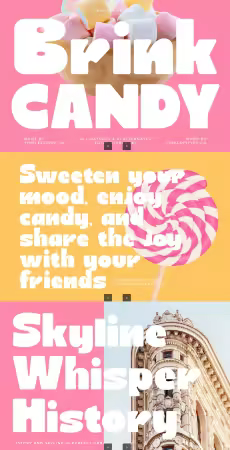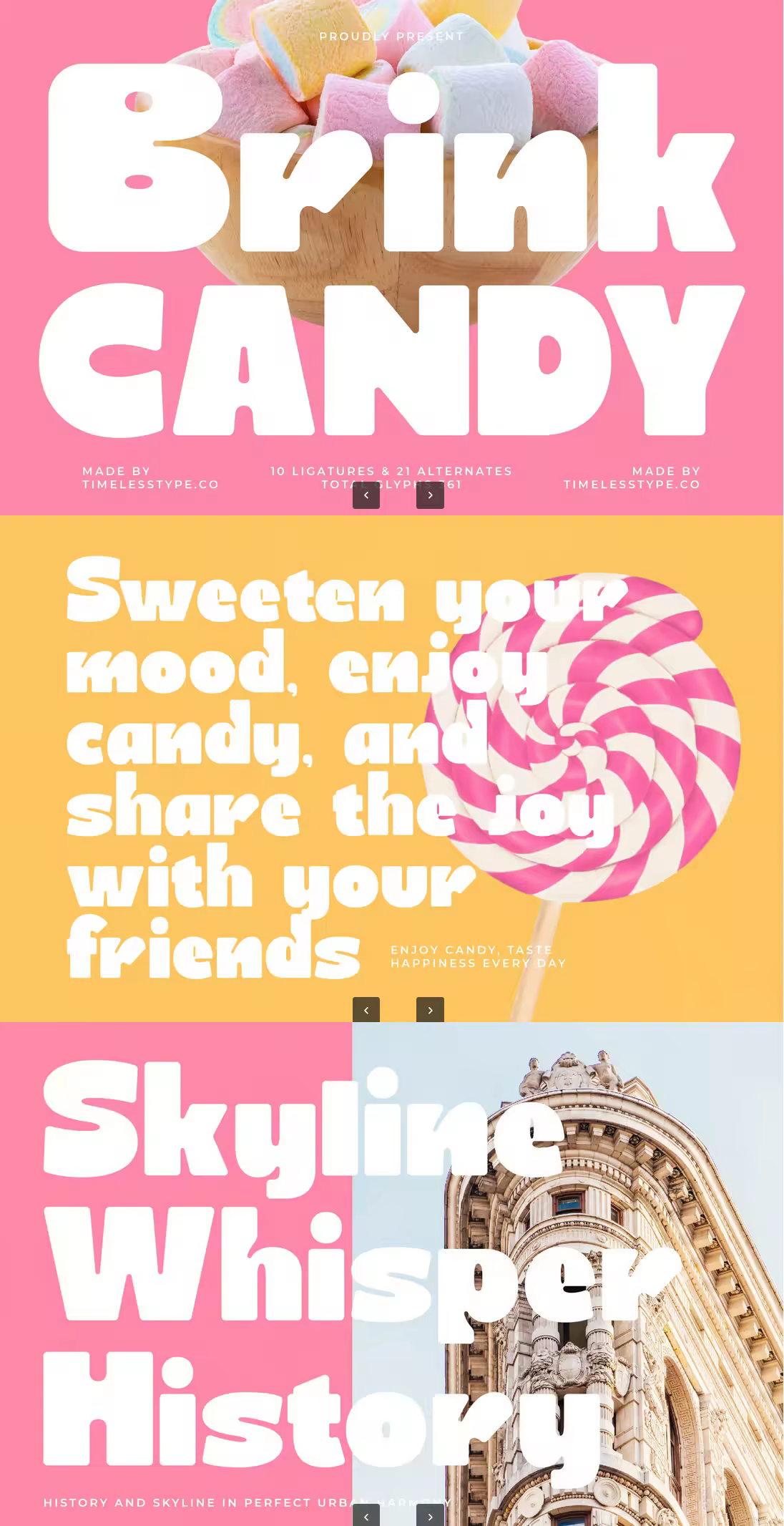
Brink Candy is a bold, ultra-chunky display typeface designed to deliver playful impact with soft rounded edges and a charming marshmallow–inspired silhouette, perfect for branding, kids’ products, packaging, posters, social media graphics, and cheerful visual identities. With 10 ligatures and 21 alternates, this font brings satisfying weight, approachable forms, and a delightful candy-like aesthetic that instantly elevates any design needing warmth, friendliness, and irresistible visual appeal.
Ligature